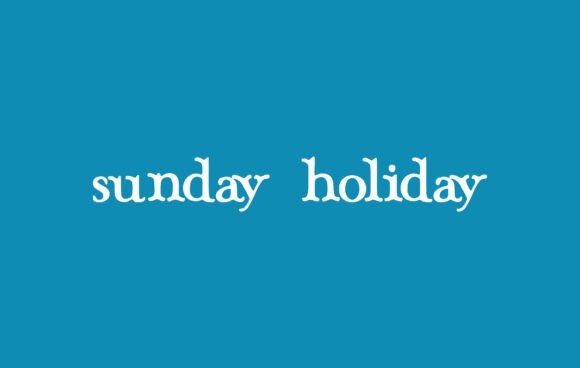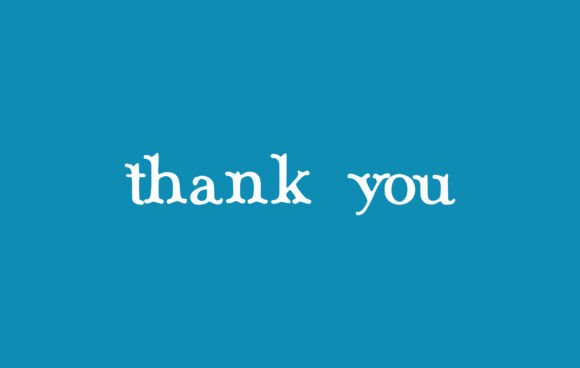
Introducing Edgecraft Font: The Perfect Blend of Elegance and Strength
In the world of typography, fonts play a crucial role in conveying the tone and personality of a brand. For designers and crafters, finding the right font can be a daunting task. However, if you’re looking for a refined serif font that brings a gentle contrast between elegance and strength, look no further than Edgecraft Font. With its graceful flared terminals, Edgecraft is perfect for branding, editorial work, and upscale packaging.
The Characteristics of Edgecraft Font
Edgecraft Font is a serif font that boasts a unique blend of elegance and strength. Its refined features make it an ideal choice for projects that require a touch of sophistication. The font’s gentle contrast between thick and thin lines creates a sense of harmony, making it perfect for designs that require balance and poise.
One of the standout features of Edgecraft Font is its graceful flared terminals. These terminals add a touch of elegance to the font, making it perfect for branding, editorial work, and upscale packaging. The flared terminals also help to create a sense of movement and fluidity, making the font more dynamic and engaging.
Uses of Edgecraft Font
Edgecraft Font is a versatile font that can be used in a variety of design projects. Here are some of the ways you can use Edgecraft Font:
- Branding: Edgecraft Font is perfect for branding projects that require a touch of elegance and sophistication. The font’s refined features make it an ideal choice for logos, business cards, and other marketing materials.
- Editorial Work: Edgecraft Font is also suitable for editorial work, such as magazines, newspapers, and books. The font’s gentle contrast between thick and thin lines creates a sense of harmony, making it easy to read and visually appealing.
- Upscale Packaging: Edgecraft Font is perfect for upscale packaging projects that require a touch of luxury and sophistication. The font’s elegant features make it an ideal choice for high-end products, such as jewelry, cosmetics, and fine wines.
Benefits of Using Edgecraft Font
There are several benefits to using Edgecraft Font in your design projects. Here are some of the advantages of using this font:
- Unique and Elegant: Edgecraft Font is a unique and elegant font that can help your designs stand out from the crowd. The font’s refined features make it perfect for projects that require a touch of sophistication.
- Versatile: Edgecraft Font is a versatile font that can be used in a variety of design projects. Whether you’re working on a branding project, editorial work, or upscale packaging, Edgecraft Font is an excellent choice.
- Easy to Read: Edgecraft Font is easy to read, making it perfect for projects that require a high level of legibility. The font’s gentle contrast between thick and thin lines creates a sense of harmony, making it easy on the eyes.
Tips for Using Edgecraft Font
Here are some tips for using Edgecraft Font in your design projects:
- Use it with a clear hierarchy: Edgecraft Font works best when used with a clear hierarchy of headings and body text. Use the font’s various weights and styles to create a clear visual hierarchy.
- Pair it with a sans-serif font: Edgecraft Font pairs well with sans-serif fonts, such as Arial or Helvetica. Use a sans-serif font for body text and Edgecraft Font for headings.
- Experiment with colors: Edgecraft Font looks great in a variety of colors. Experiment with different colors and combinations to find the one that works best for your project.
In conclusion, Edgecraft Font is a refined serif font that brings a gentle contrast between elegance and strength. With its graceful flared terminals, it’s perfect for branding, editorial work, and upscale packaging. The font’s unique and elegant features make it an ideal choice for designers and crafters who want to add a touch of sophistication to their designs. Whether you’re working on a branding project, editorial work, or upscale packaging, Edgecraft Font is an excellent choice.